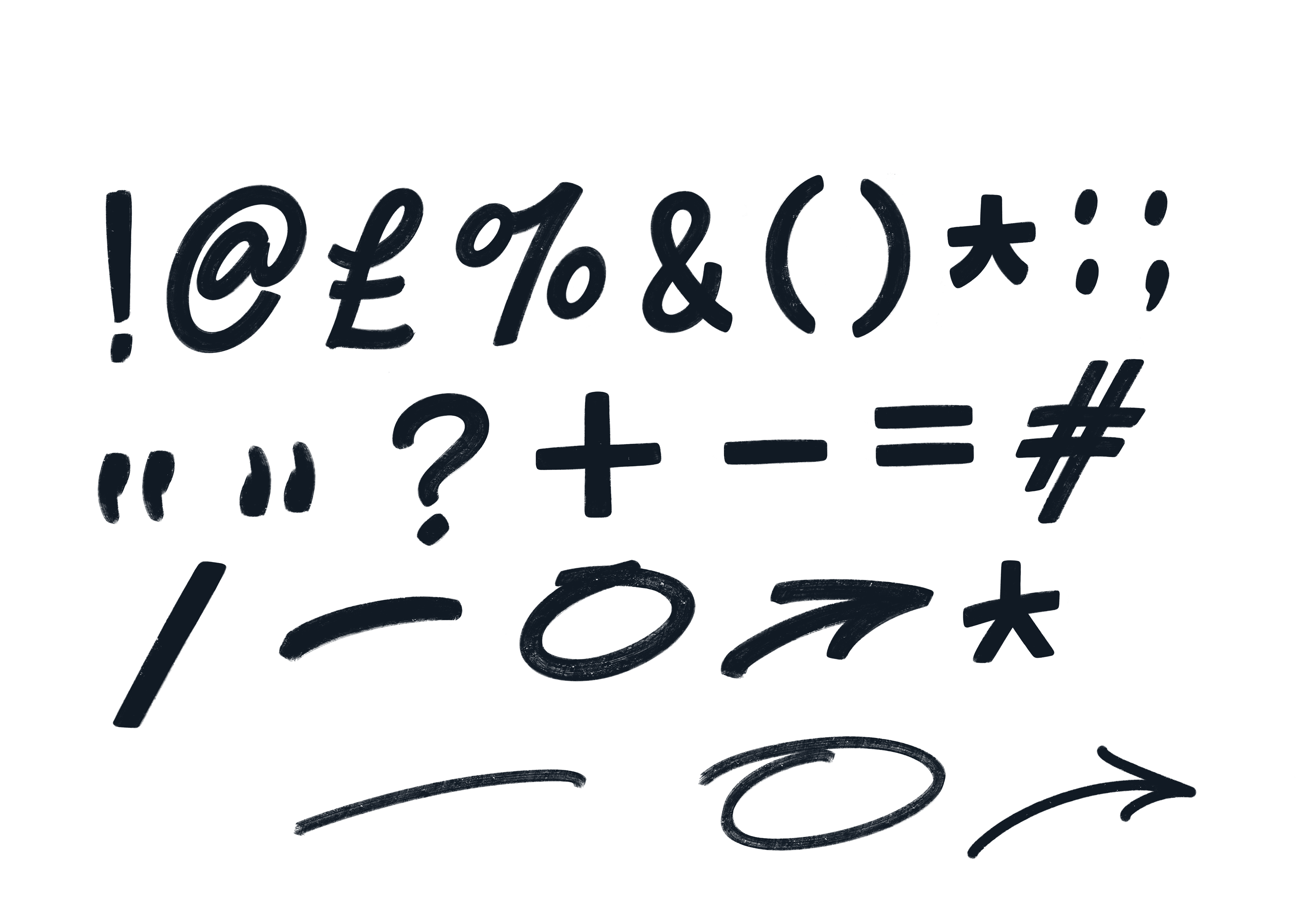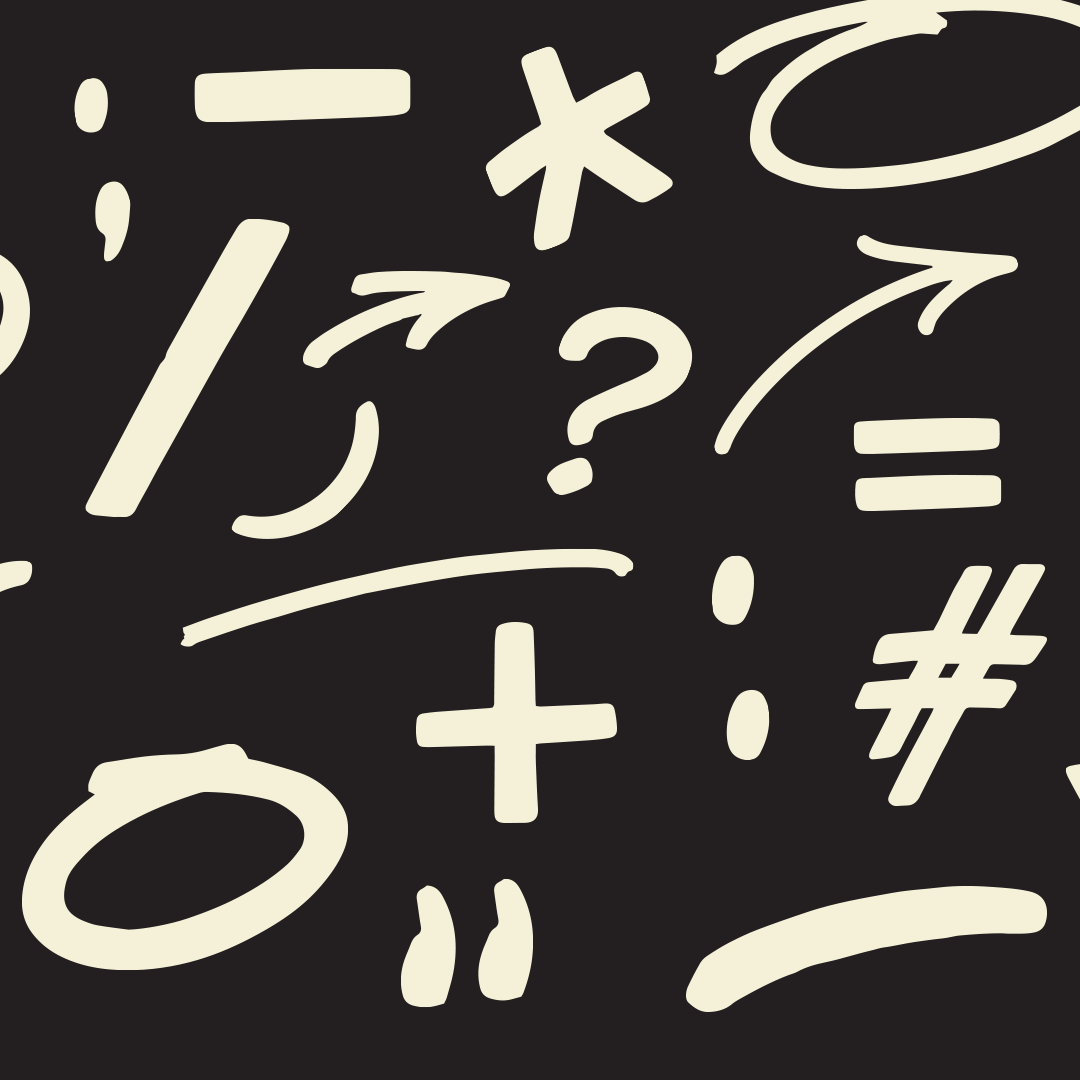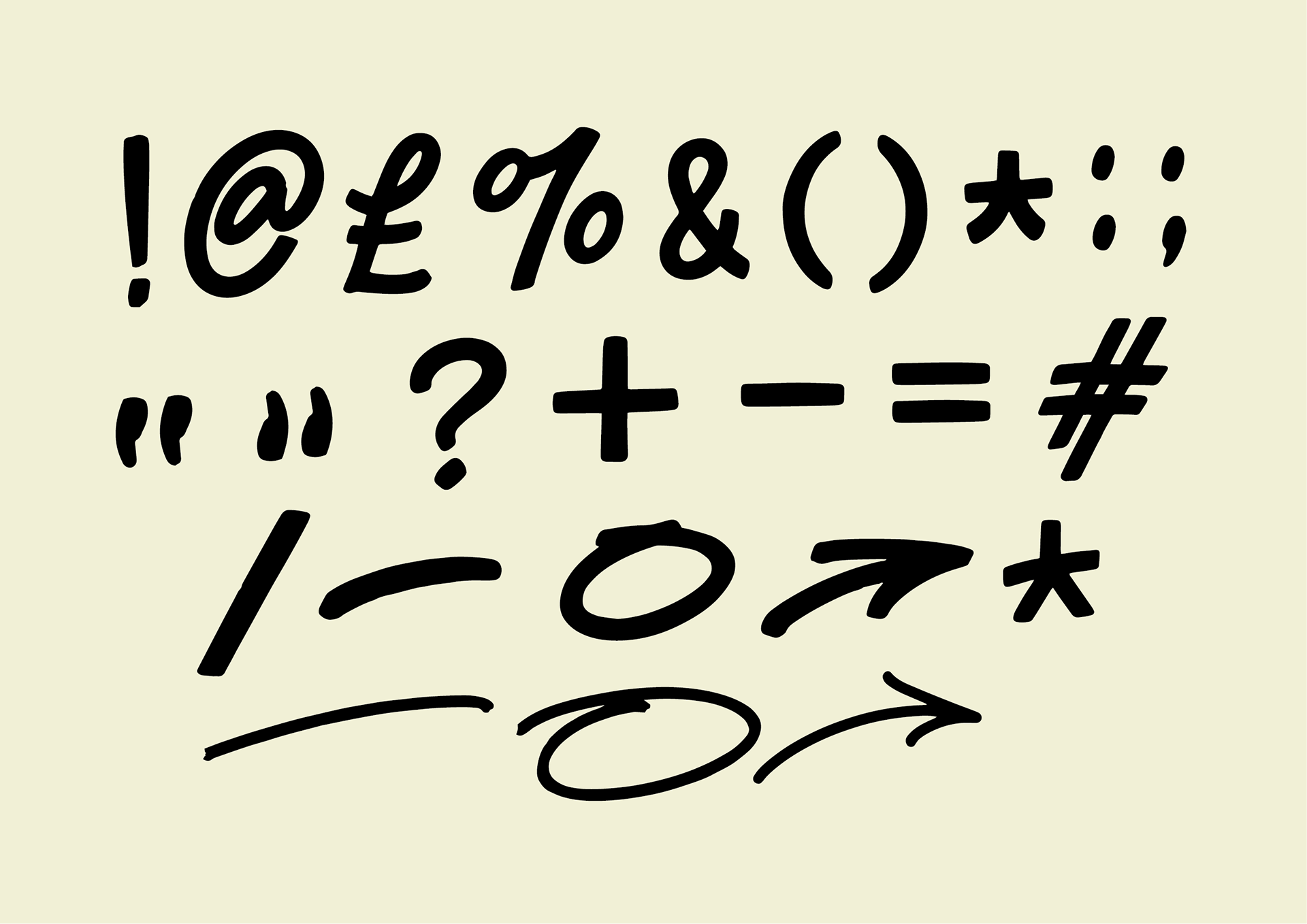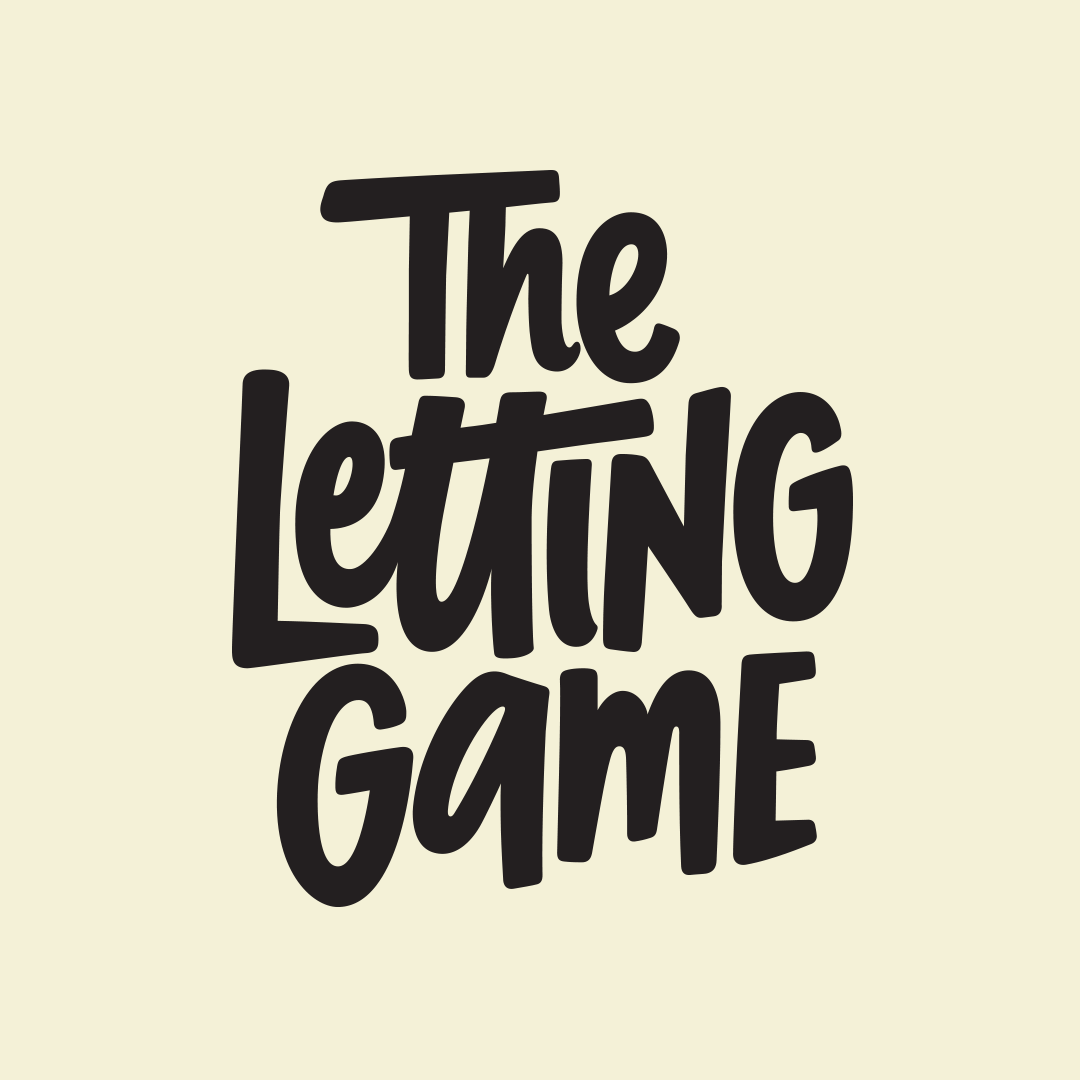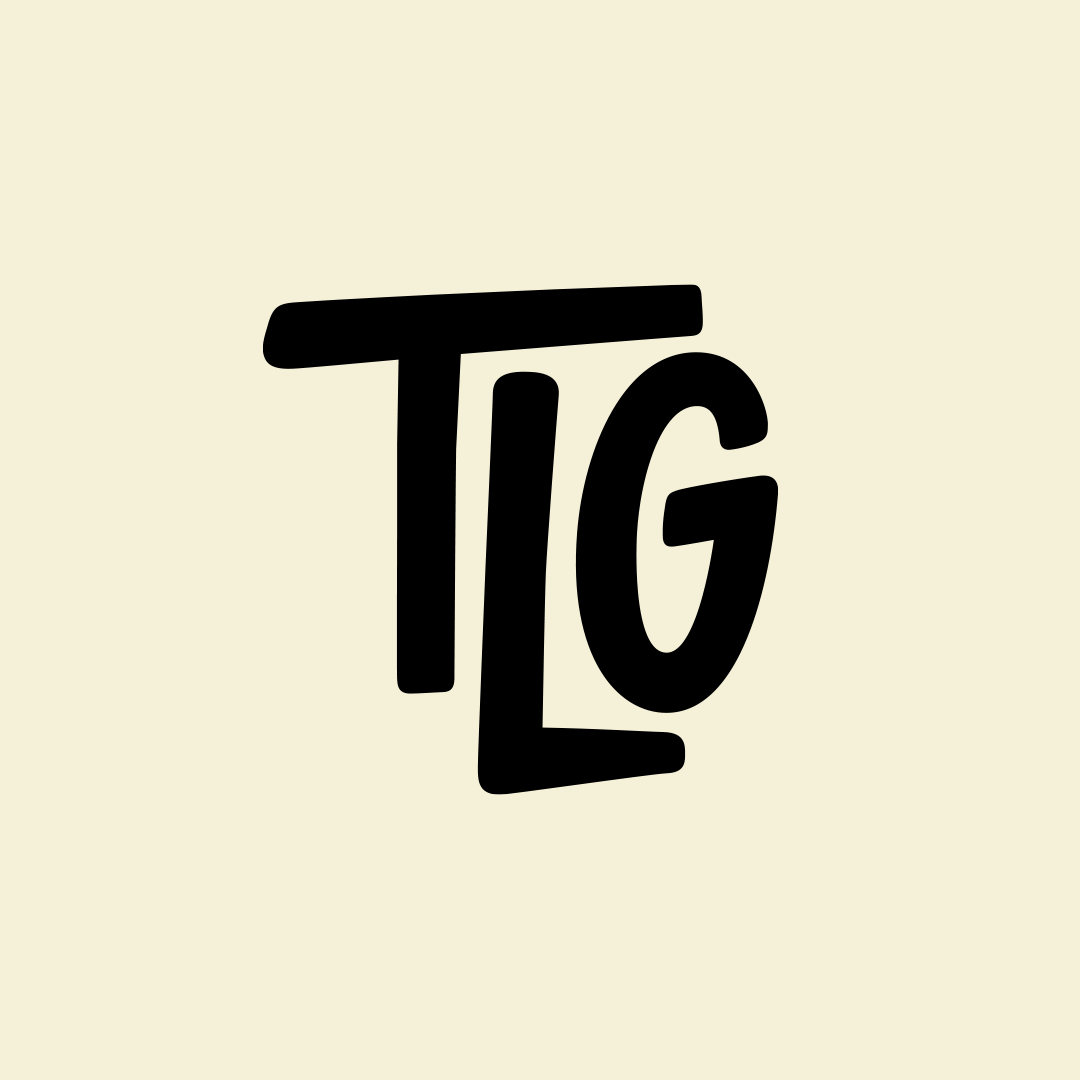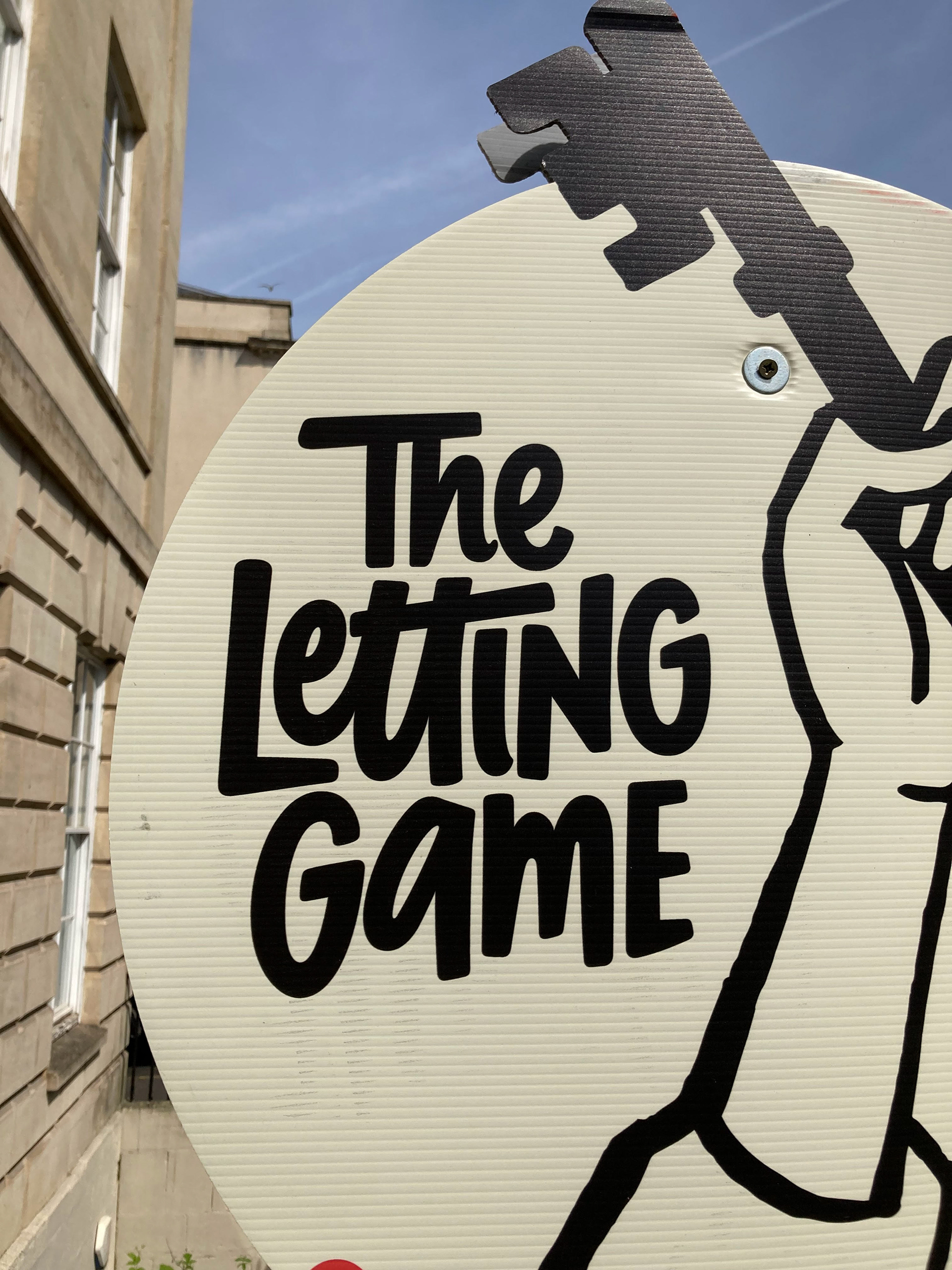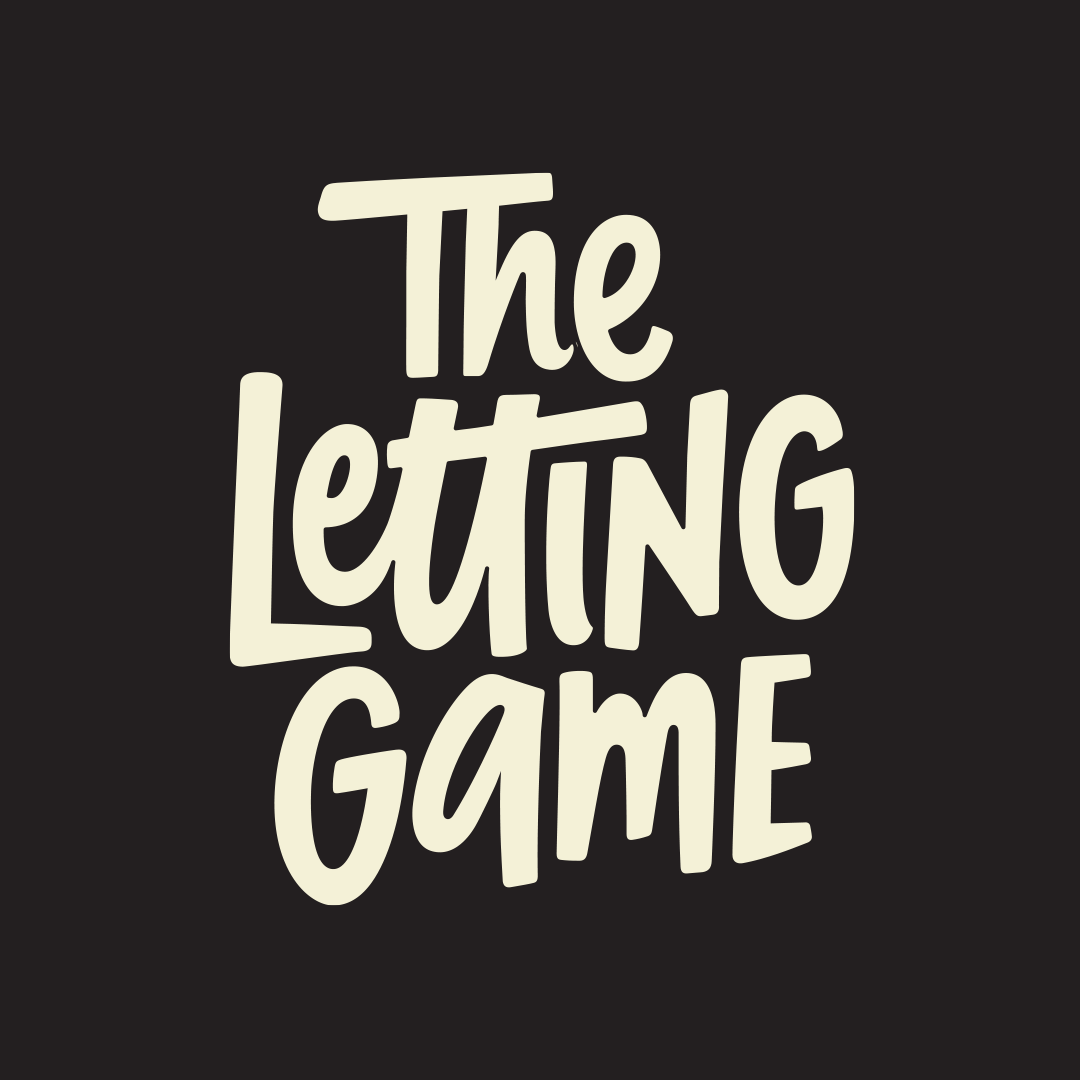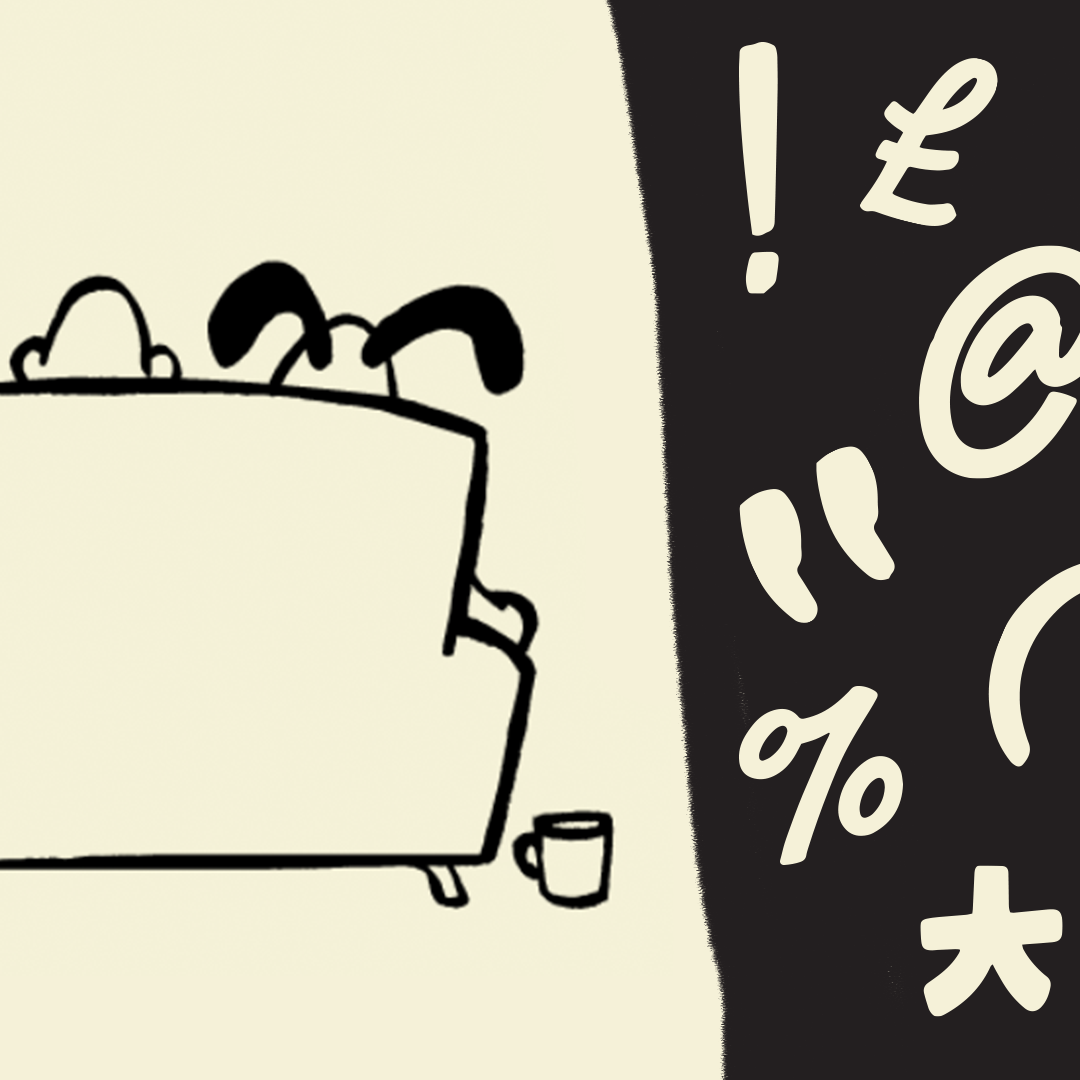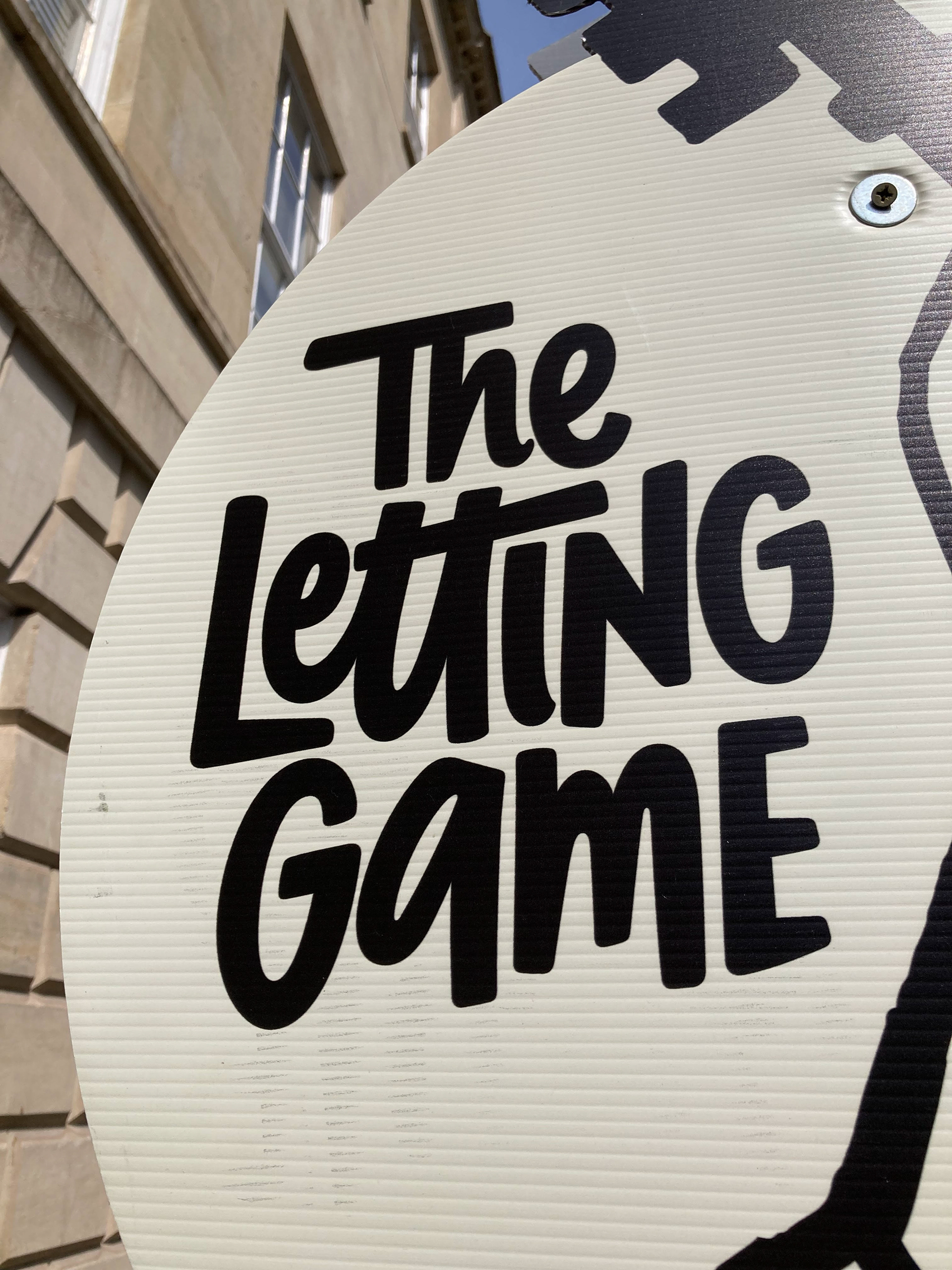
The Letting Game estate agents wanted a fun but professional logo, monogram and set of glyphs that would appeal to students and young professionals looking for lets. The final branding, teamed with a set of stylish and contemporary illustrations achieves a look that has real stand-out amongst competitors.